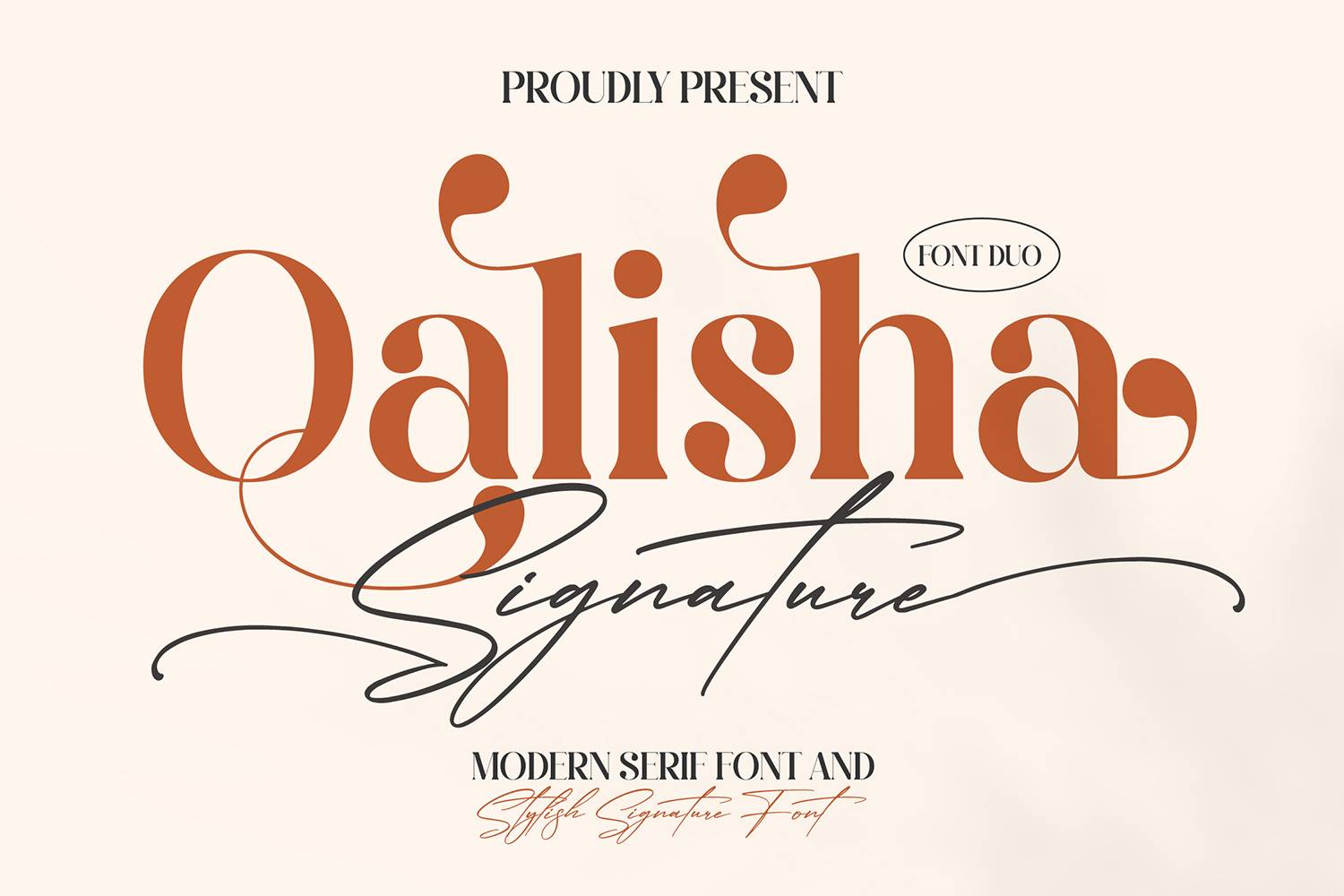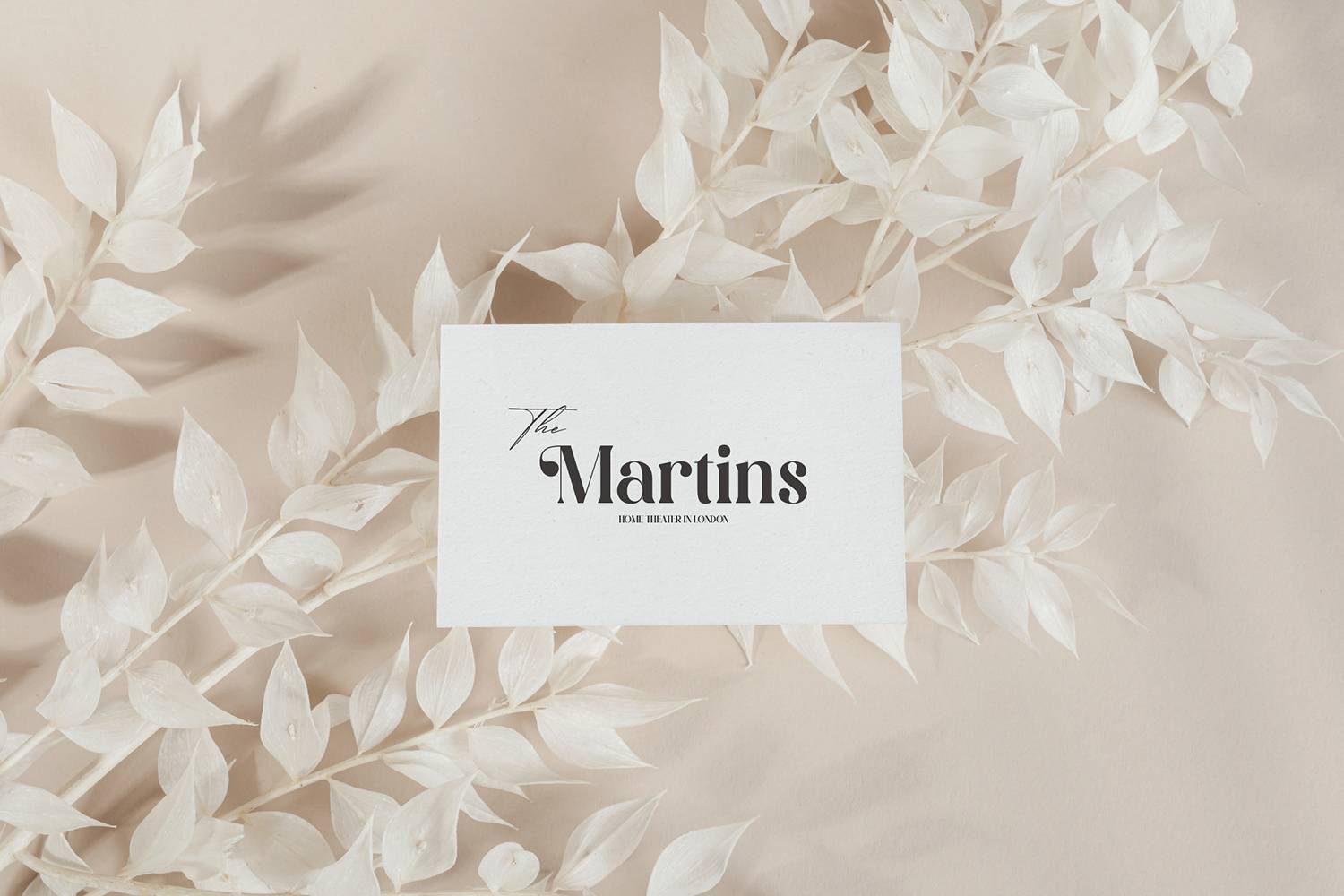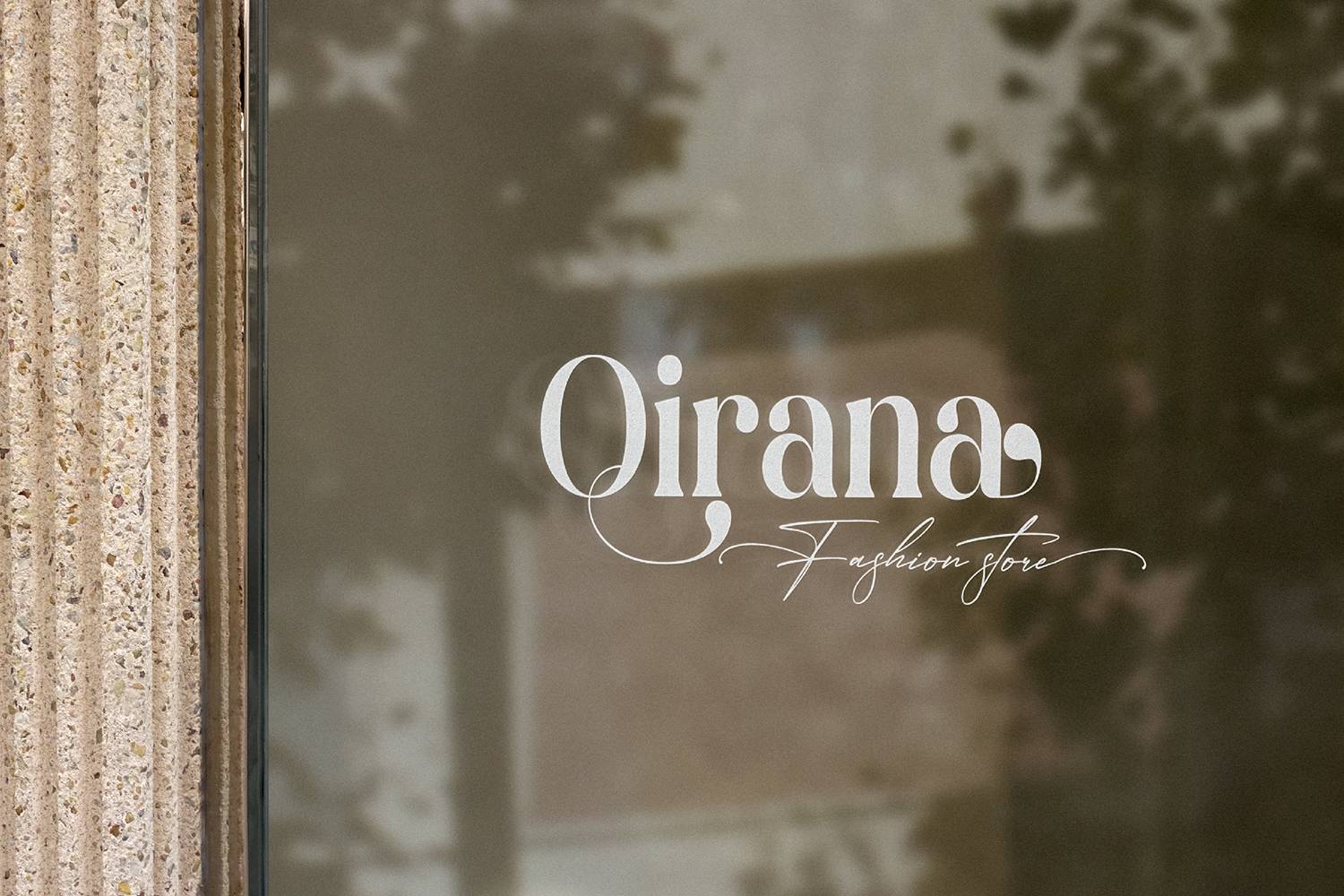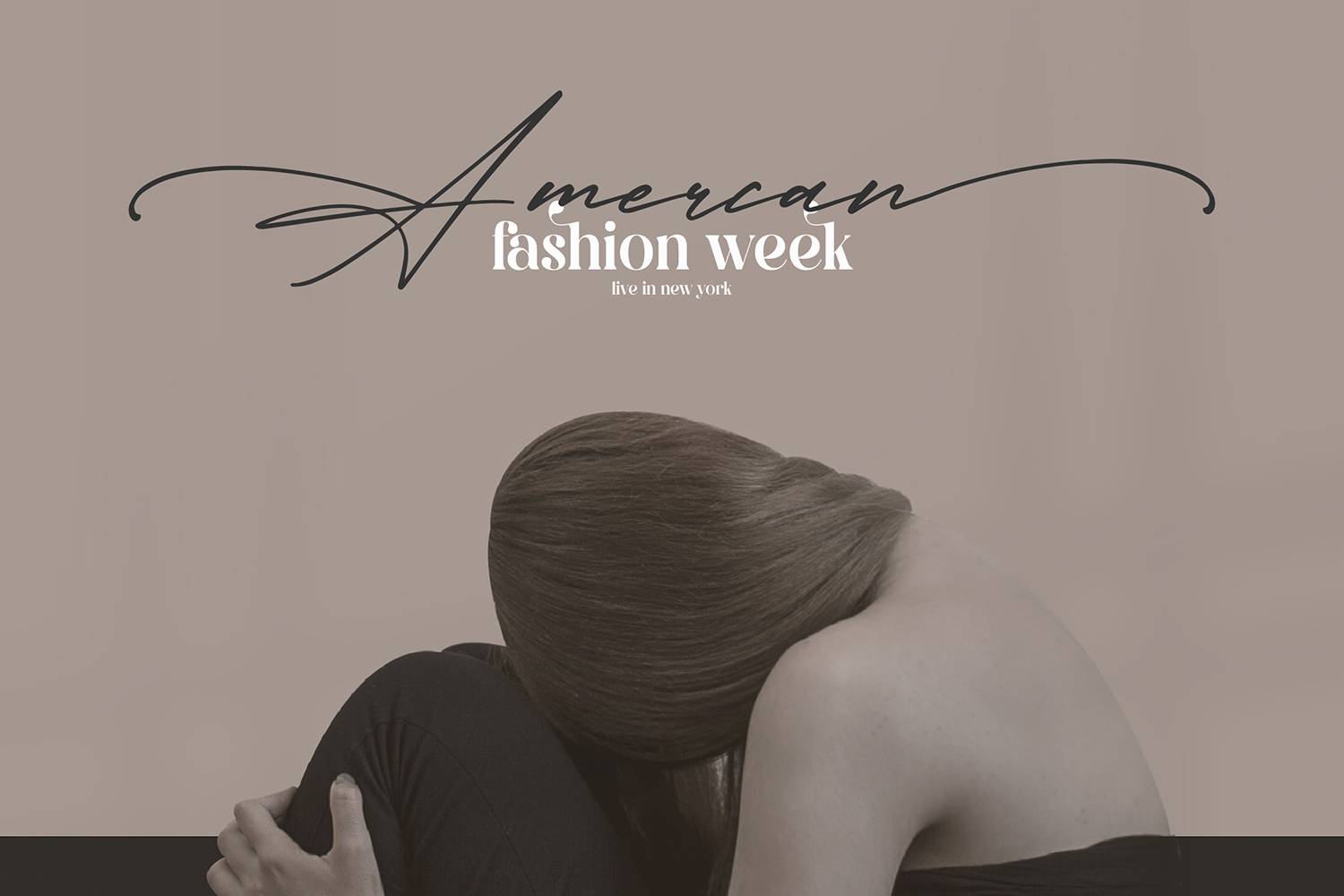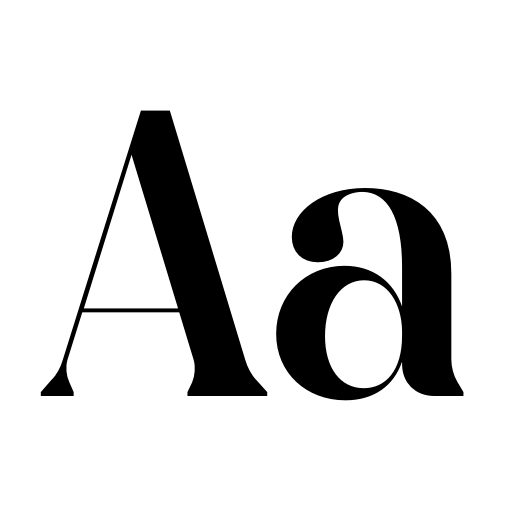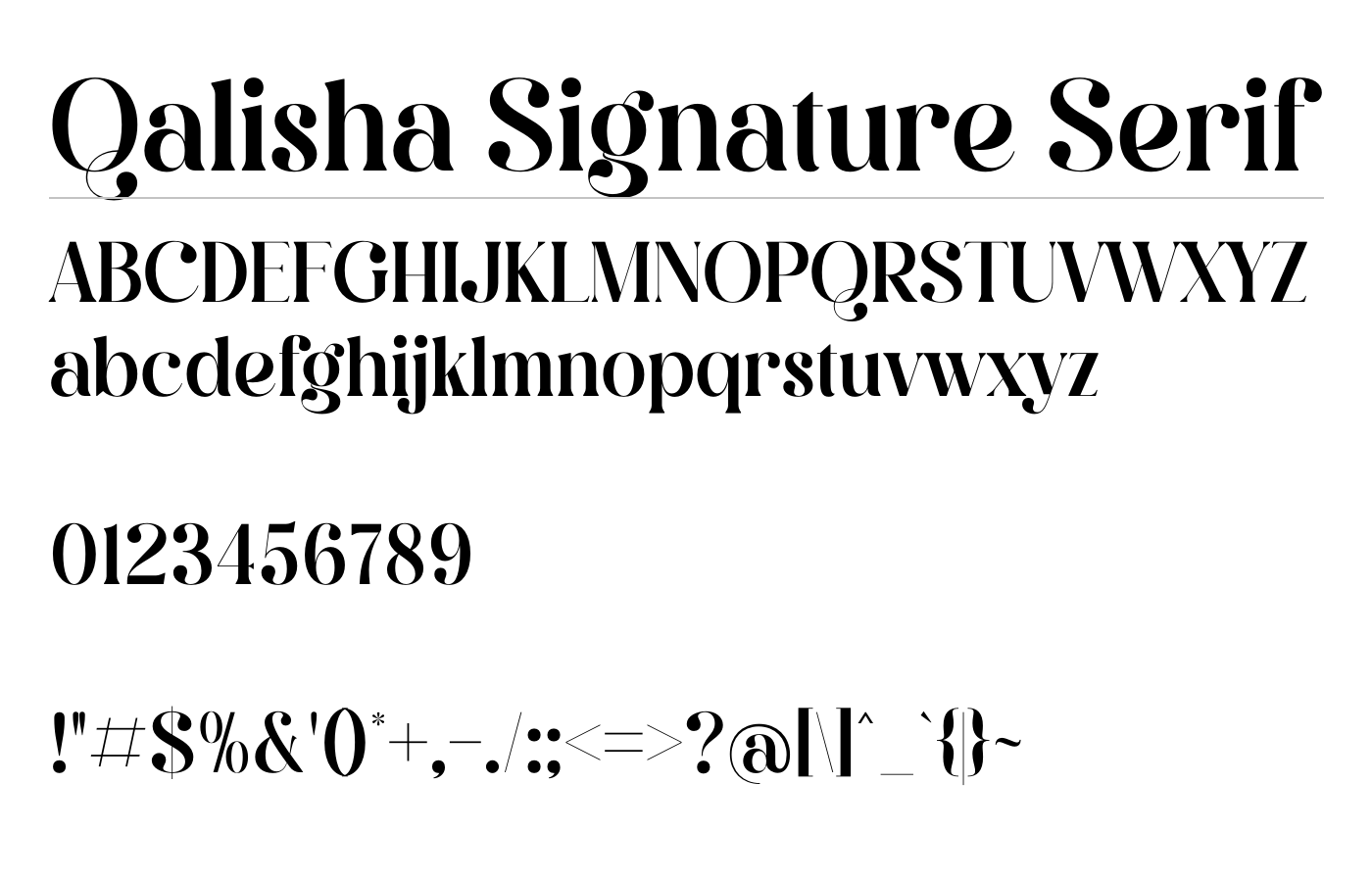
Qalisha Signature Serif is a striking serif font with high contrast and elegant, sharp strokes that give it a modern yet timeless feel. Its distinctive curled terminals and refined details add a luxurious and sophisticated touch, making it ideal for fashion branding, editorial headlines, and upscale packaging. This font works best where a bold, stylish statement is needed to convey elegance and creativity.
Qalisha Font
About Qalisha Font